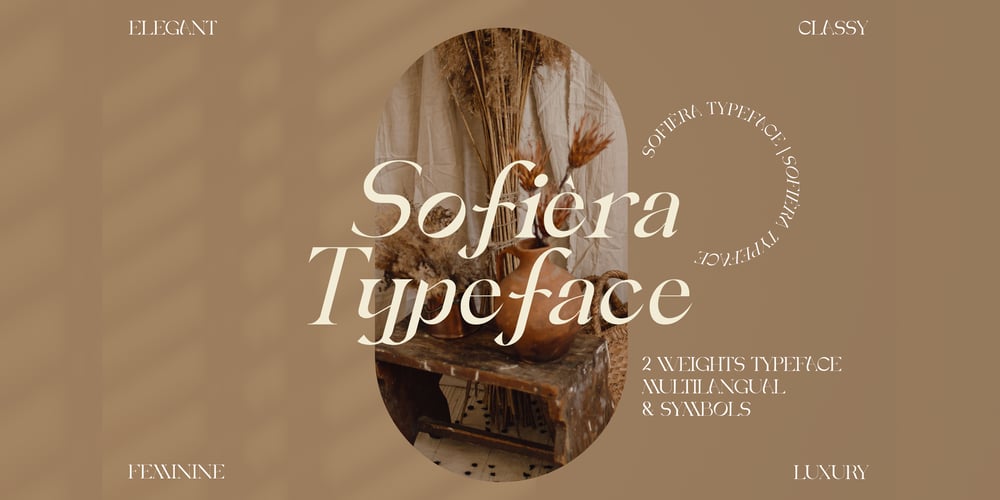
CCS Sofiera Font Family was designed by Kurt Harahap and published by Creative Corner Studio. CCS Sofiera contains 2 styles and family package options. CCS Sofiera is a New Luxury Vintage font that is both elegant and unique with smooth curves and tons of special alternative glyphs, ornament and multilingual support. It’s a very versatile font that works great in large and small sizes. CCS Sofiera is perfect for branding projects, Logo design, Clothing Branding, product packaging, magazine headers, or simply as a stylish text overlay to any background image.